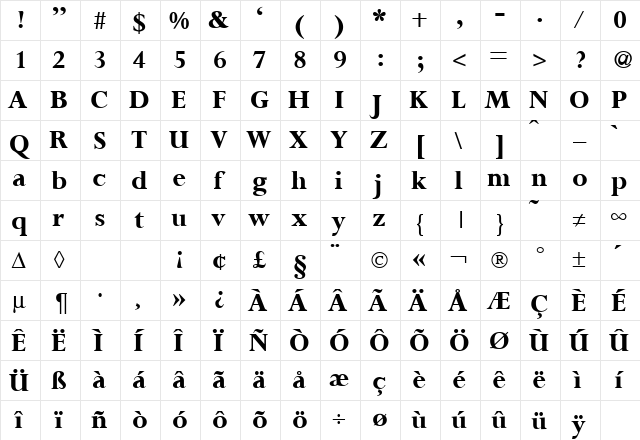
Perspective Bold
Design Context for Perspective Typeface
Perspective is a composed and adaptable typeface that performs quietly and consistently across a wide range of design contexts. Its bold stroke weight gives it real presence on the page.
Pro Tip: Use Perspective in both headline and body roles to test its range before committing to a single application.